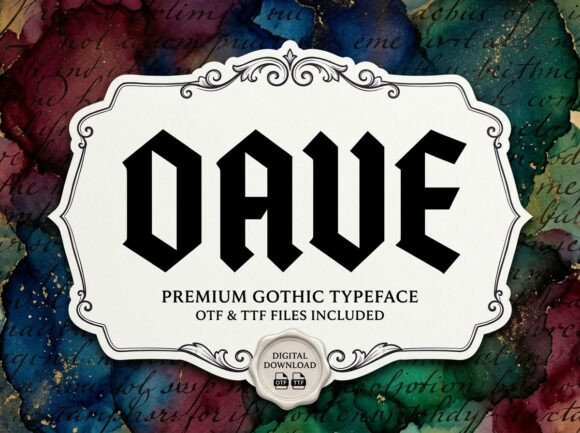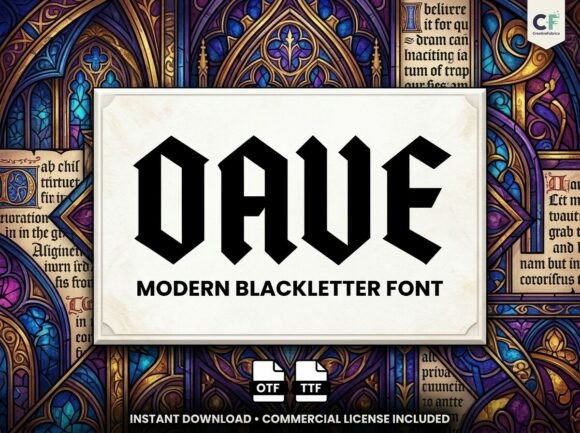
Introducing Dave Font: A Stunning Decorative Display Font
Are you tired of using the same old fonts for your creative projects? Look no further than Dave Font, a unique and artistic display font designed to make a statement. With its strong visual personality and decorative elements, this font is perfect for creators who want to add a touch of elegance and sophistication to their work.
What Makes Dave Font Special?
Dave Font is a versatile decorative display font that is specifically designed to be the center of attention. Its unique artistic elements and strong visual personality make it perfect for a variety of creative projects, from bold headlines and artistic logos to creative packaging and decorative initials.
One of the standout features of Dave Font is its ability to add a touch of professionalism and polish to any project. Despite its decorative nature, this font is surprisingly versatile and can be used in a range of contexts, from branding and advertising to packaging and editorial design.
Before you purchase Dave Font, it’s essential to note that this font is an ALL-CAPS (Uppercase Only) display typeface. This means that it does not include lowercase letters, and is specifically designed for high-impact headlines, logos, and decorative initials where every letter is a work of art.
This unique design feature is what sets Dave Font apart from other fonts on the market. By focusing on uppercase letters, the designer has been able to create a truly stunning and decorative font that is perfect for adding a touch of drama and elegance to any project.
Use Cases for Dave Font
So, what can you use Dave Font for? The possibilities are endless, but here are a few ideas to get you started:
- Headlines and Titles: Use Dave Font to create bold and eye-catching headlines that grab attention and draw the reader in.
- Artistic Logos: Create a unique and memorable logo for your brand or business using Dave Font.
- Creative Packaging: Add a touch of elegance and sophistication to your product packaging with Dave Font.
- Decorative Initials: Use Dave Font to create beautiful and decorative initials for your website, social media profiles, or marketing materials.
In conclusion, Dave Font is a stunning decorative display font that is perfect for creators who want to add a touch of elegance and sophistication to their work. With its unique artistic elements, strong visual personality, and versatility, this font is sure to make a statement in any project.